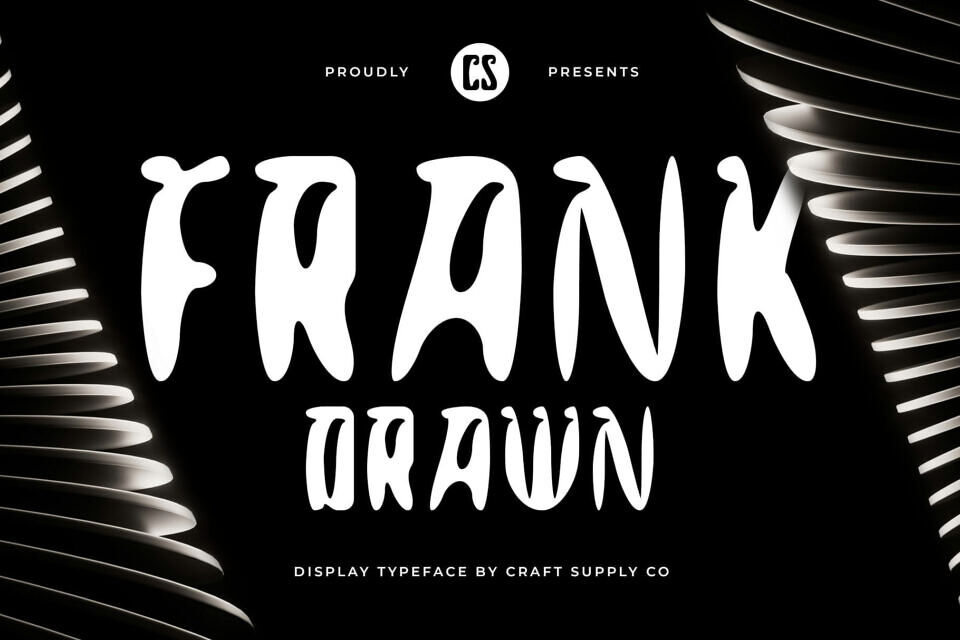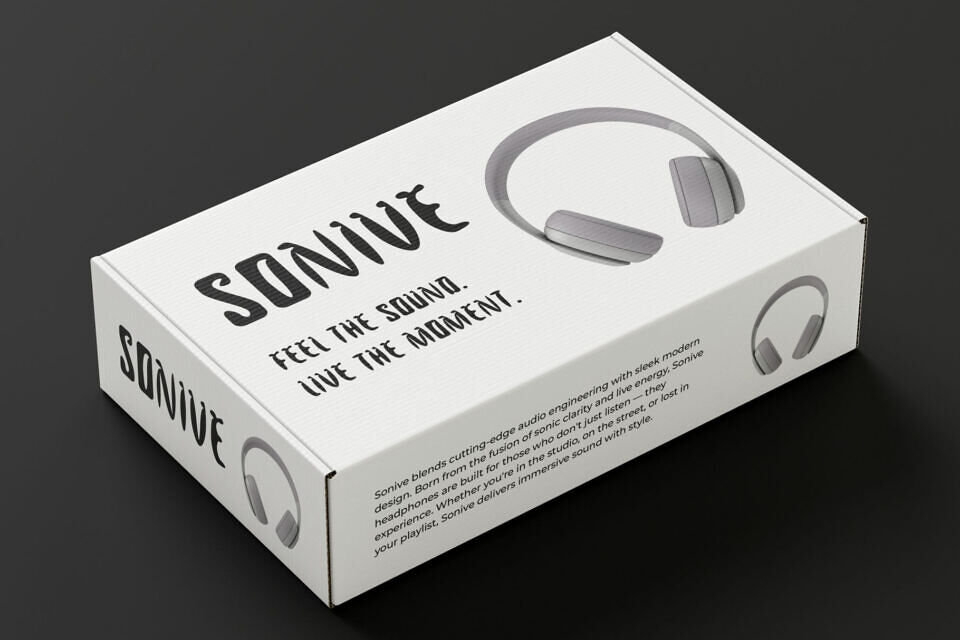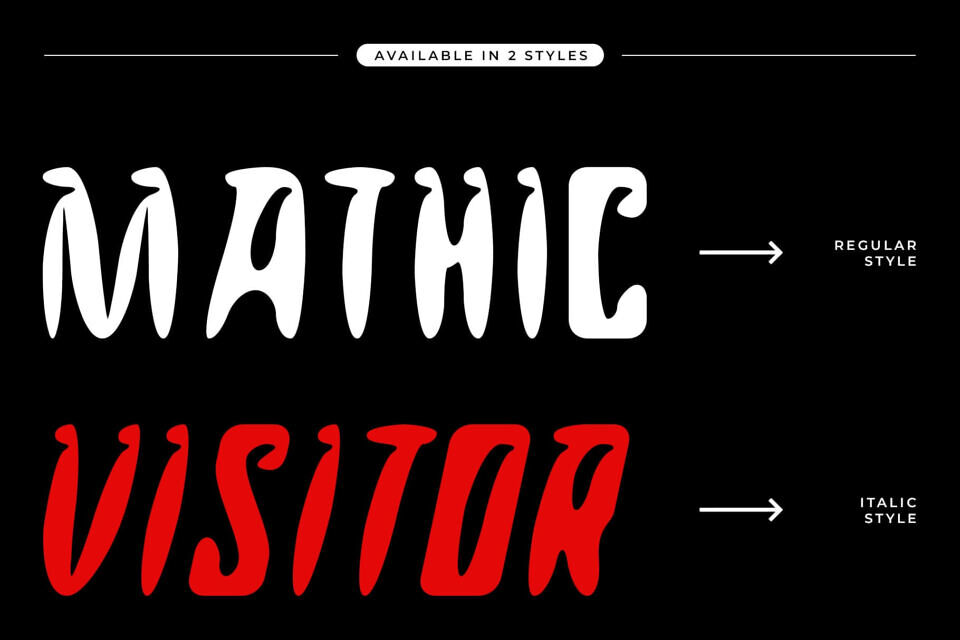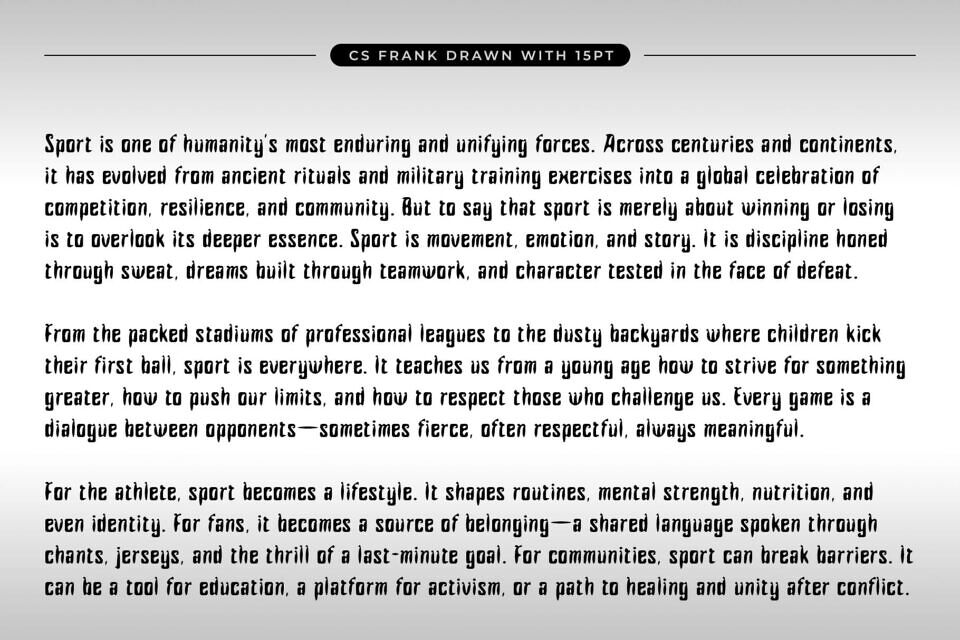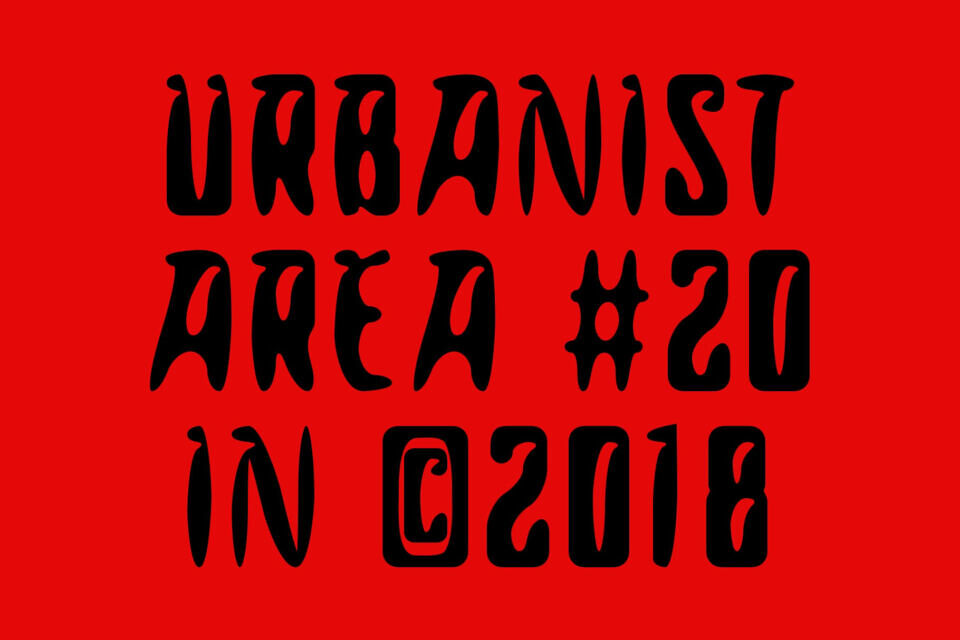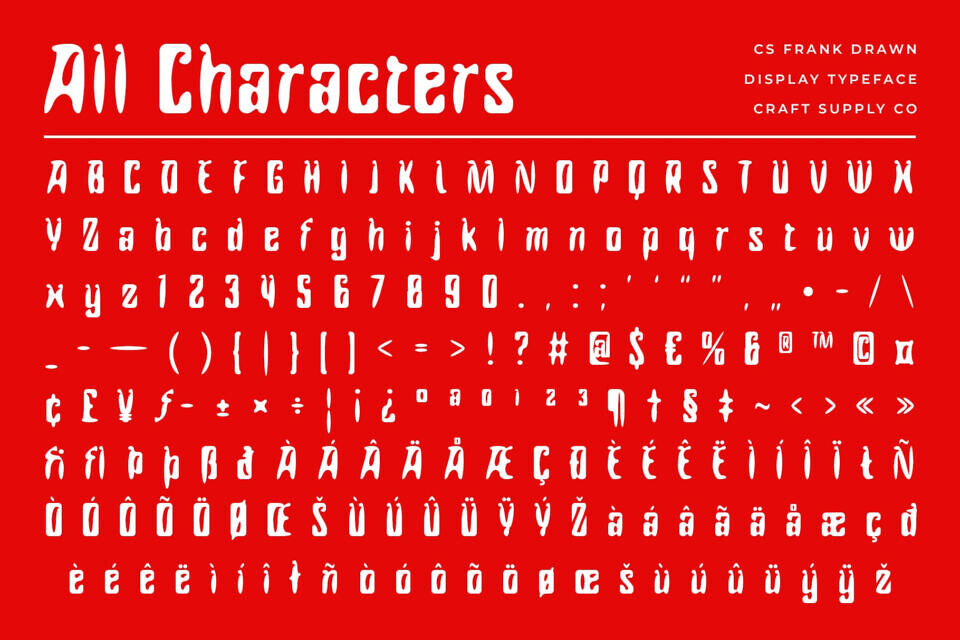
CS Frank Drawn Font
CS Frank Drawn is a bold, modern sans-serif font blending geometric precision with a hand-drawn edge. Its clean, crisp letterforms exude contemporary strength, while subtle imperfections add warmth and personality.
Perfect for headlines, branding, posters, and web graphics, it balances minimalist power with artistic charm. This versatile font ensures clarity and impact, making it ideal for creative projects needing a polished yet expressive look.
Whether for brand identity or editorial design, CS Frank Drawn delivers a memorable, human touch with professional flair.